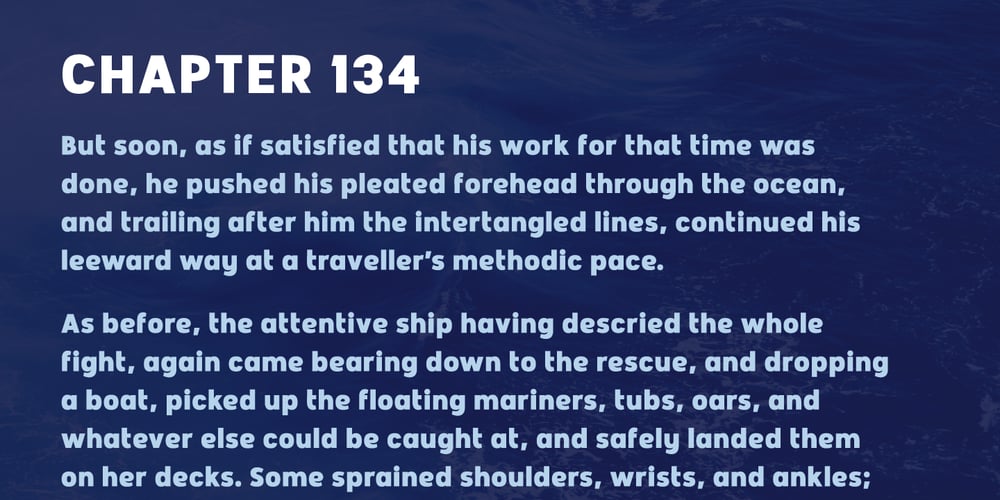
Sea Font Family was designed by Luke Thompson and published by Luke Thompson. Sea contains 1 styles and family package options. Sea is a versatile sans serif font that works well in a variety of sizes and applications. It’s friendly, but robust and professional.